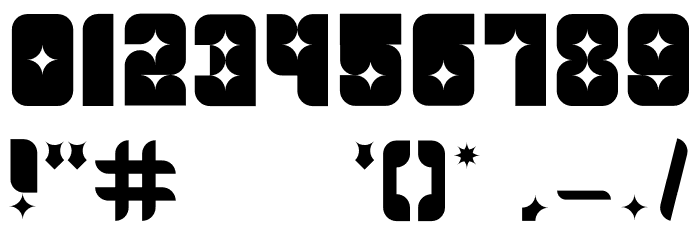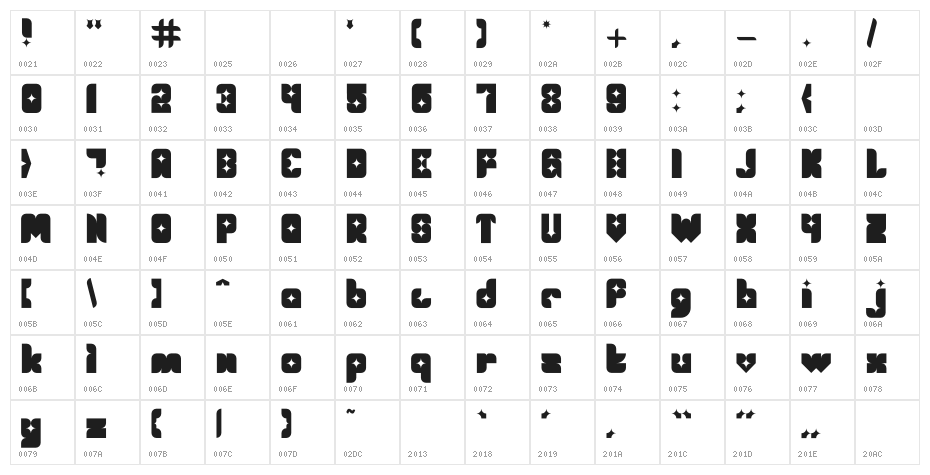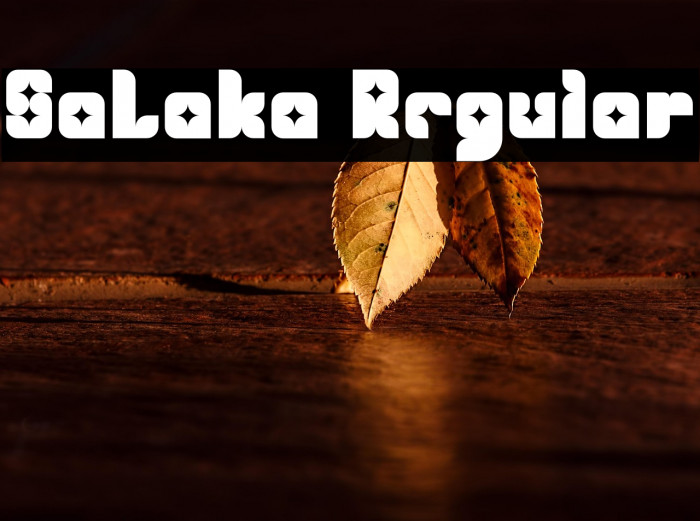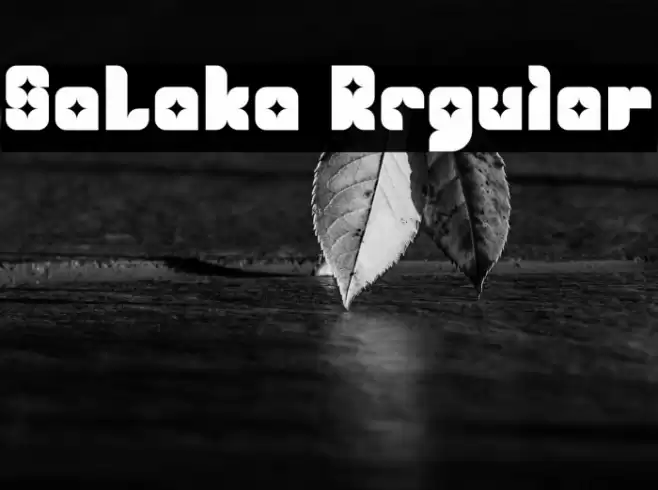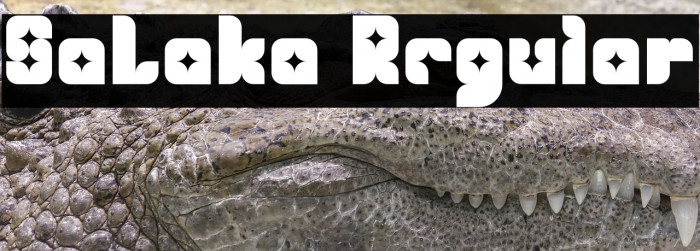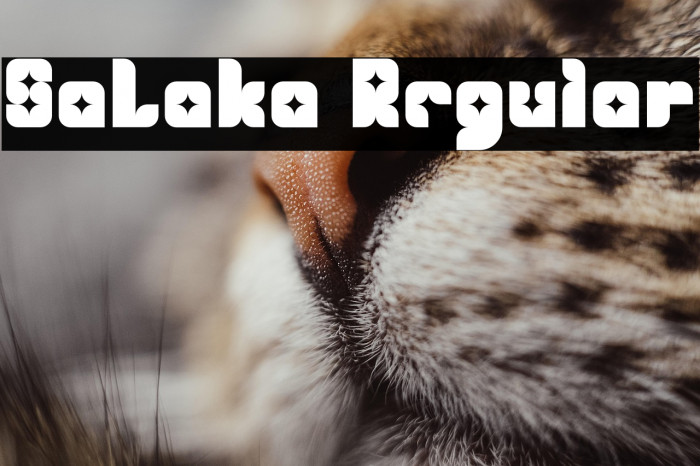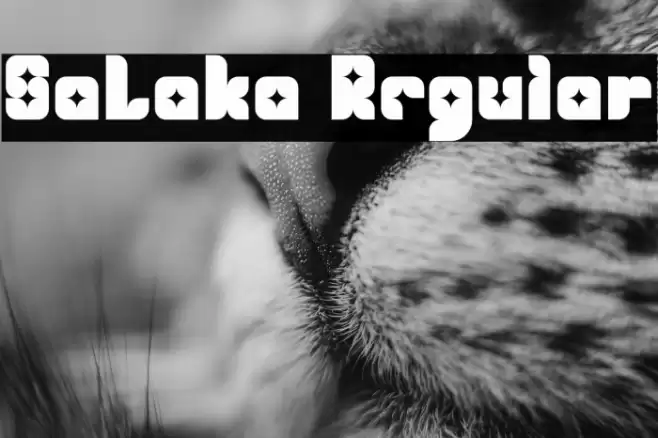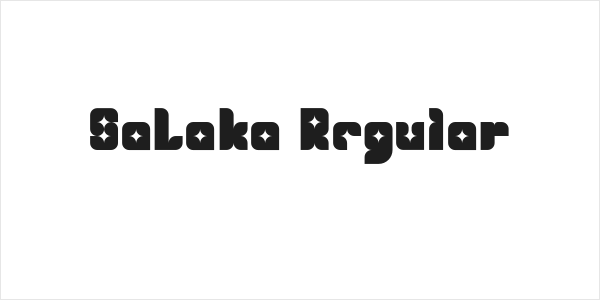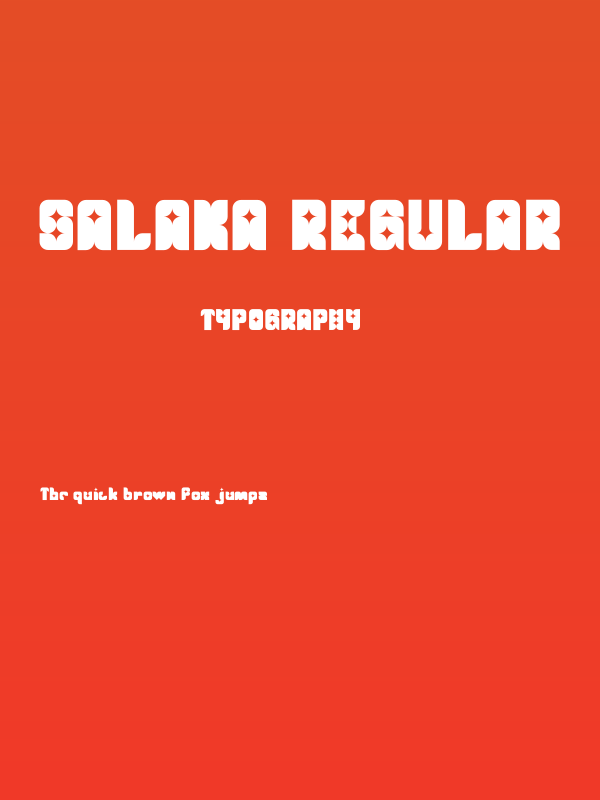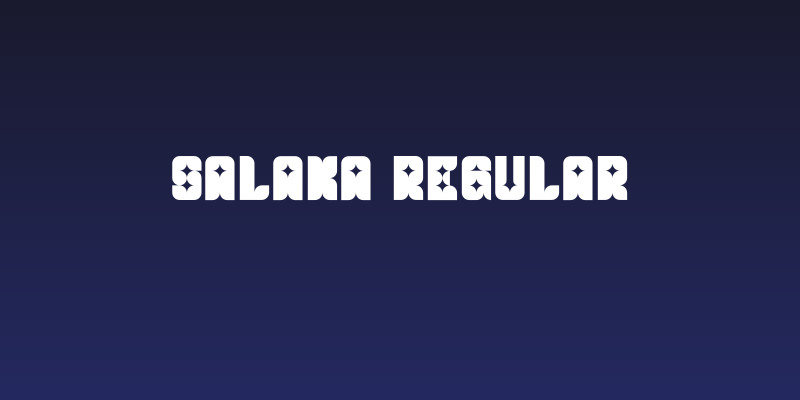
SaLaka Regular Font
SaLaka Regular Description
This font features a bold and geometric style with a unique decorative flair. Each character is designed with solid, block-like forms that incorporate star-shaped cutouts, giving it a distinct and playful appearance. The uppercase and lowercase letters maintain a consistent weight, creating a uniform look across the alphabet. Numbers and special characters follow the same design principles, ensuring cohesion throughout. The font's boldness and decorative elements make it stand out, ideal for eye-catching designs.
| Overall Style | Modern, Decorative |
| Proposed Projects | Perfect for posters, logos, branding, and any project requiring a bold, decorative typeface. |